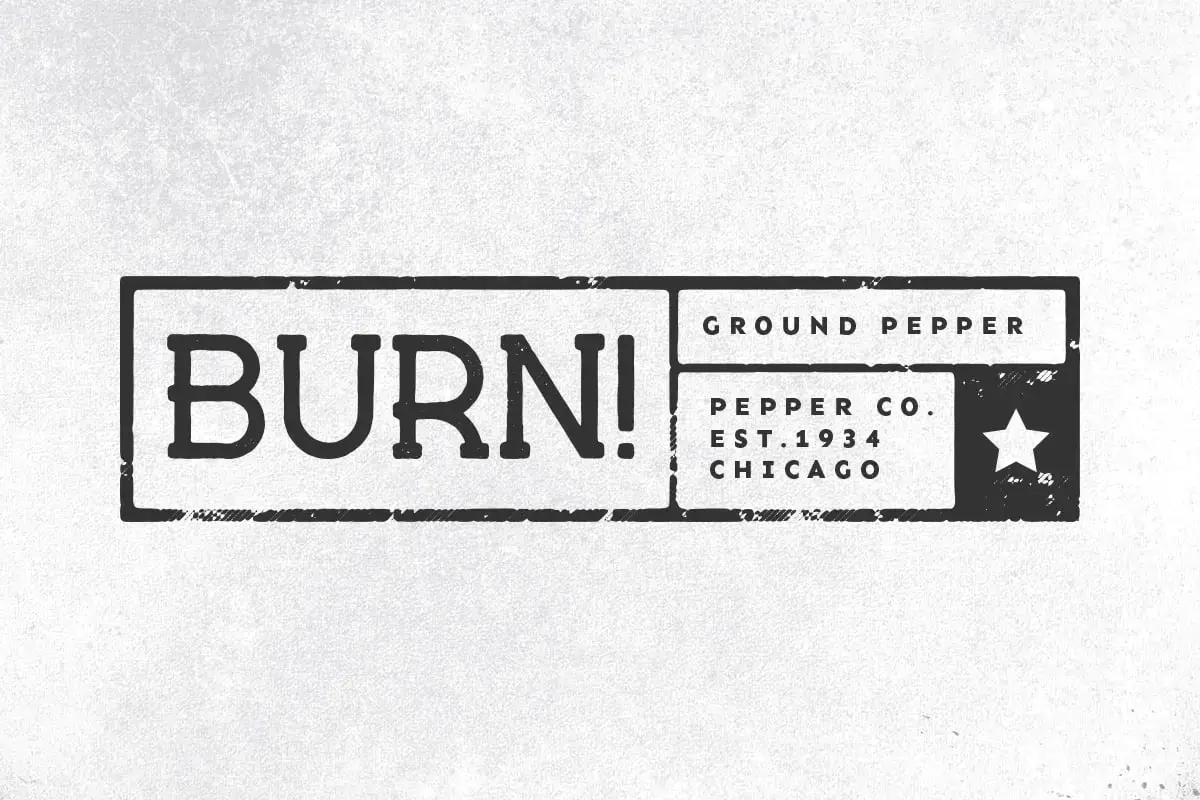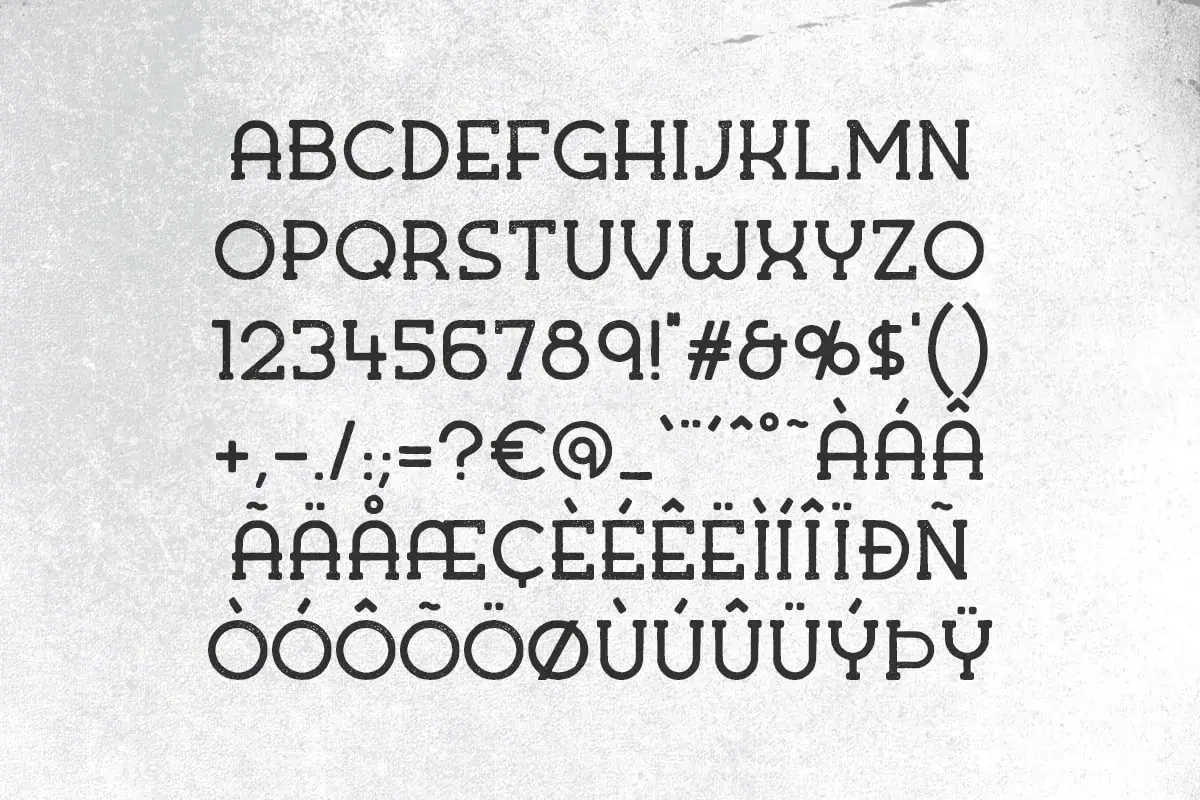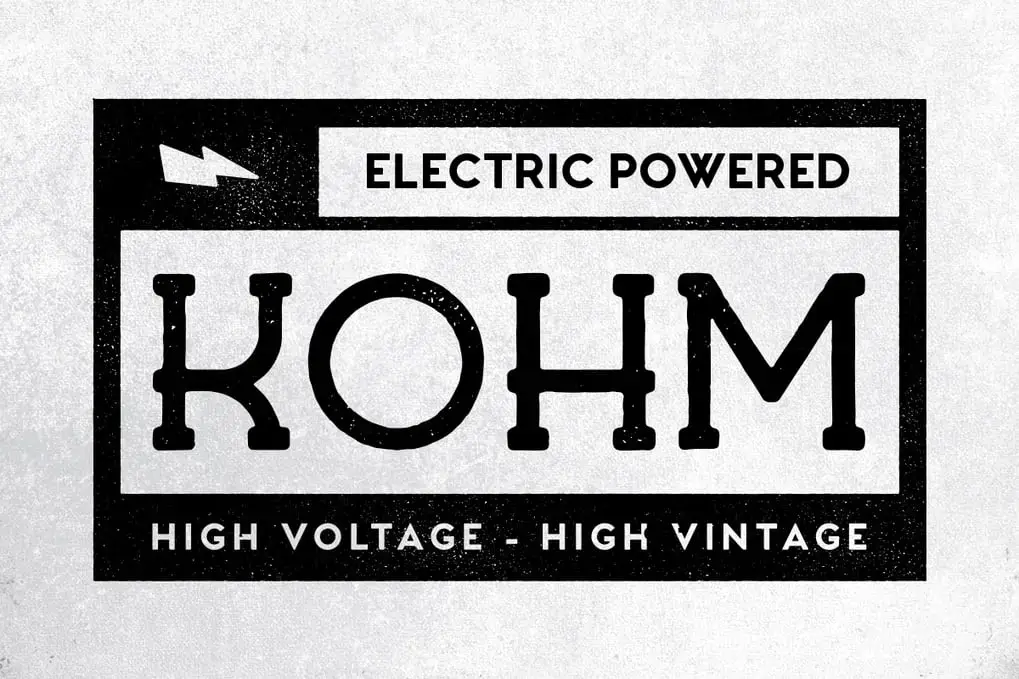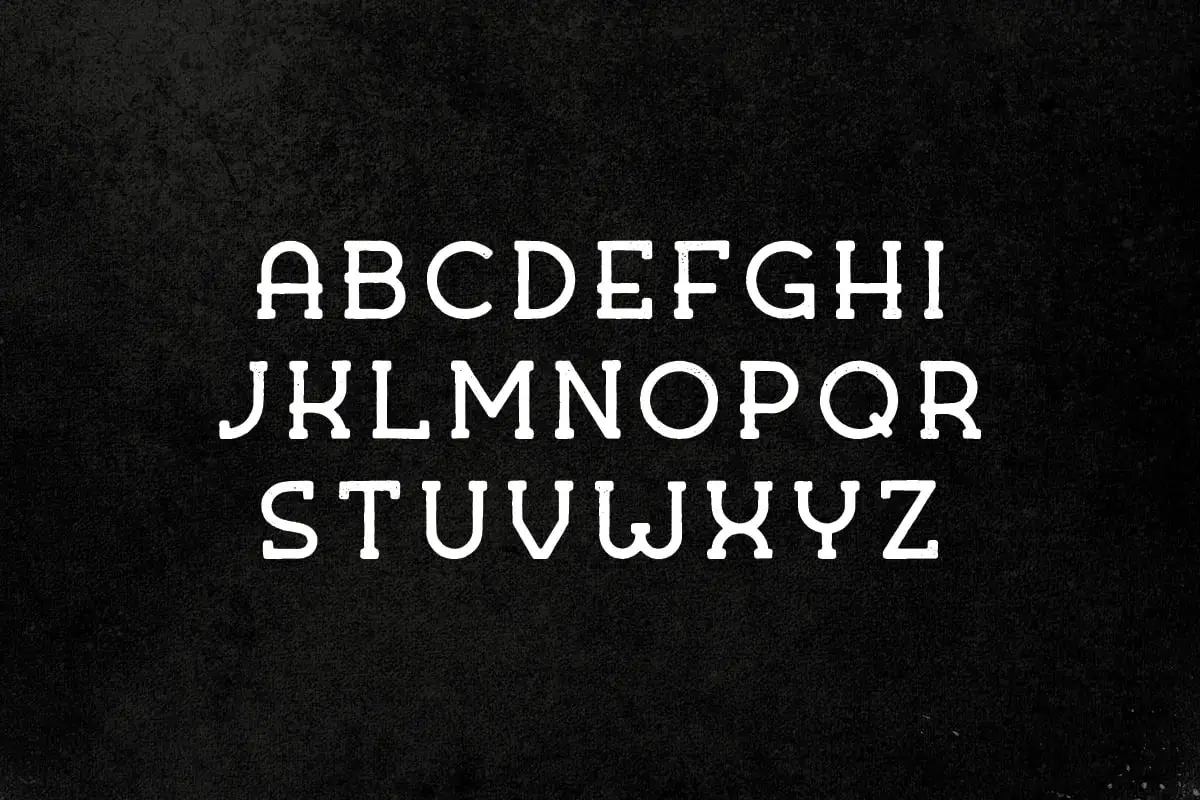
Mehmetrehatugcu Kohm Vintage Font
The Mehmetrehatugcu Kohm Vintage Font is a beautifully crafted typeface that embodies a classic aesthetic, perfect for a range of design projects. With its unique vintage flair, this font is ideal for branding, logos, web design, and print materials.
• Stylish vintage design
Utilize the Mehmetrehatugcu Kohm Vintage Font for creating eye-catching headlines, stylish logos, or any project that requires a touch of nostalgia. Its versatility allows it to shine in both digital and print formats.